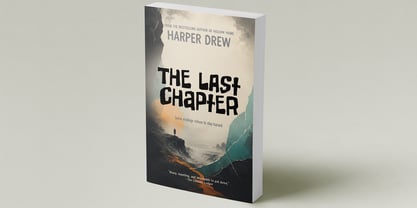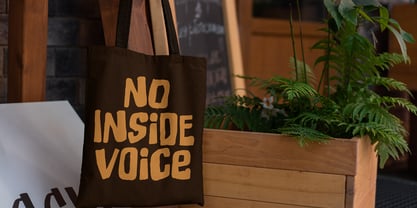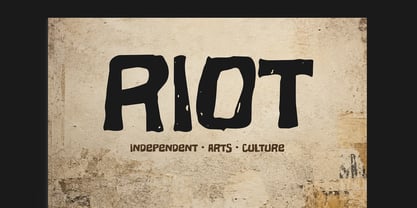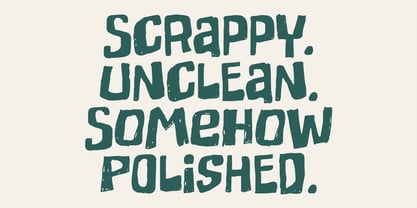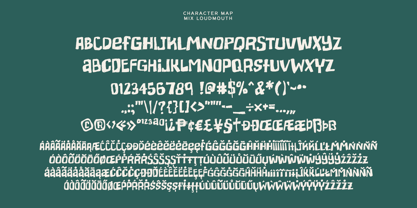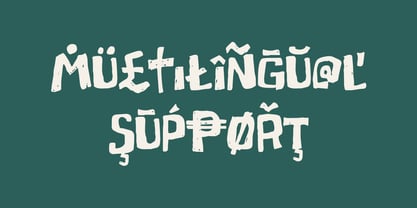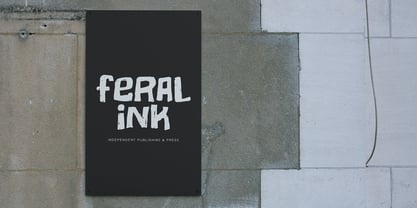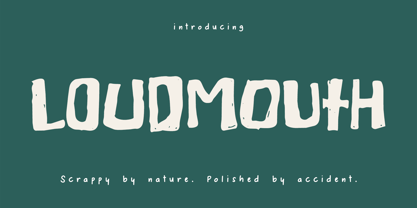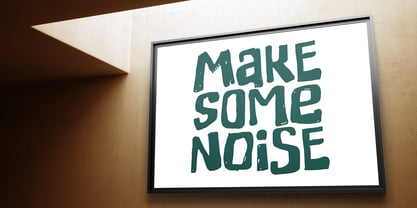
Loudmouth
La familia tipográfica Loudmouth fue diseñada por Mikko Sumulong y publicada por Mix Fonts. Loudmouth contiene 1 estilos. Más información sobre esta familia
Mix Loudmouth is a hand-drawn mixed-case display typeface with intentional variation in stroke weight and letterform construction. Every glyph is drawn differently — different weight, different width, different character — so words set in Loudmouth build into dense, organic shapes that read as drawn rather than typed.
Scrappy by nature. Somehow still polished.
It works best at display sizes, where the texture and personality of the letterforms are most visible. Use it for book covers, logotypes, zine titles, poster headlines, album covers, greeting cards, and any project where one word needs to carry the whole design.
Includes uppercase, lowercase, numerals, extended punctuation, currency symbols including the Philippine peso, and multilingual diacritic support for major Western European languages.